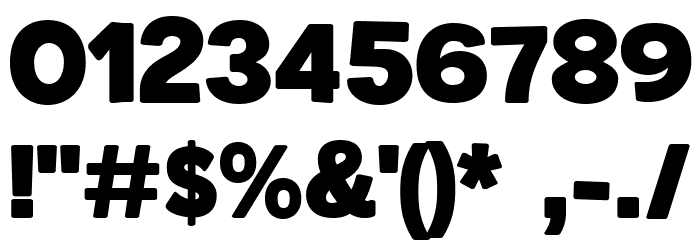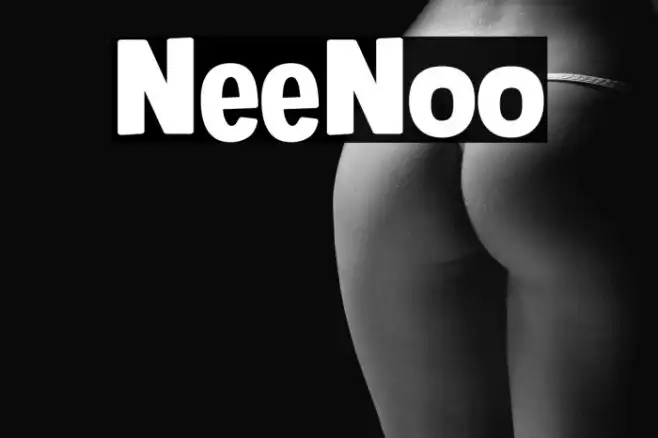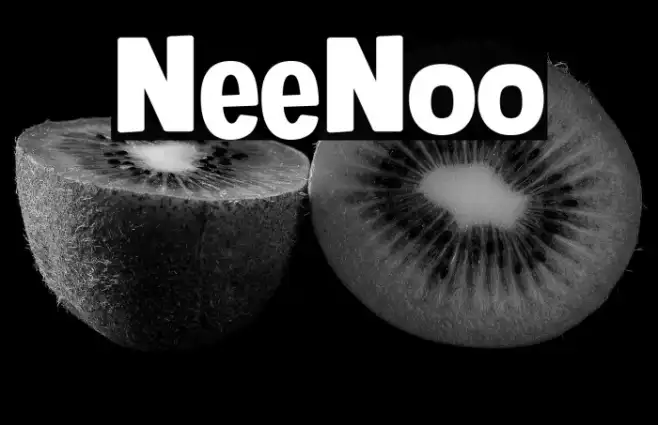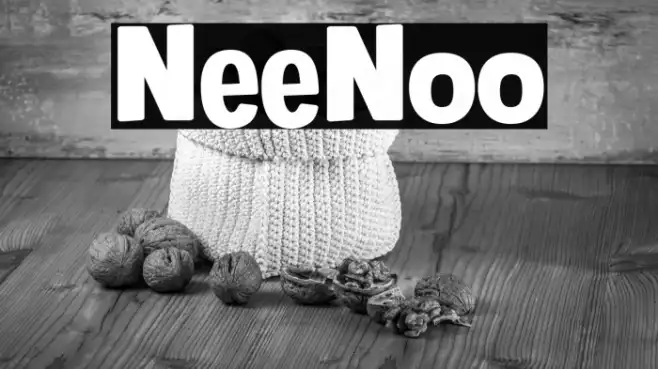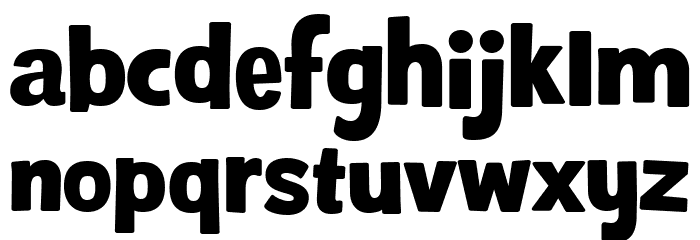
NeeNoo Font
NeeNoo Description
This font features a bold and playful design with rounded edges and a slightly irregular shape, giving it a friendly and approachable appearance. The characters are thick and robust, making them highly legible and impactful. The uppercase and lowercase letters maintain a consistent style, with a slight variation in the curves that adds a touch of whimsy. The numbers and special characters are equally bold, ensuring uniformity across all glyphs. This font's unique style makes it suitable for projects that require a fun and engaging look.
| Proposed Projects | Ideal for children's books, playful branding, posters, and social media graphics. |